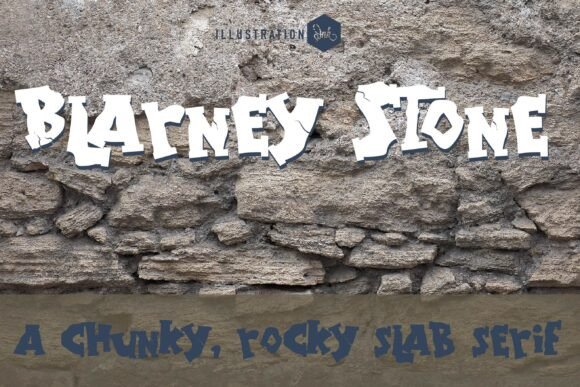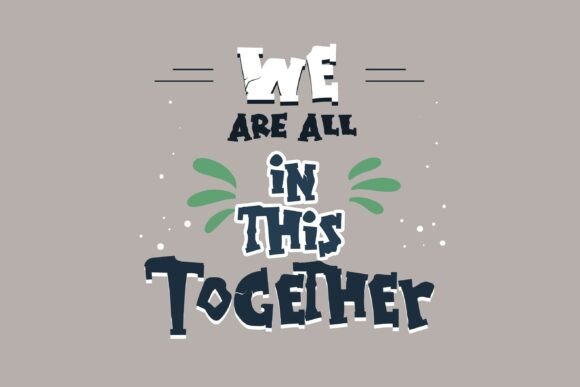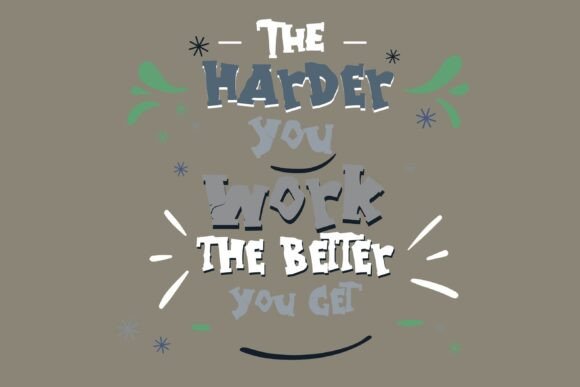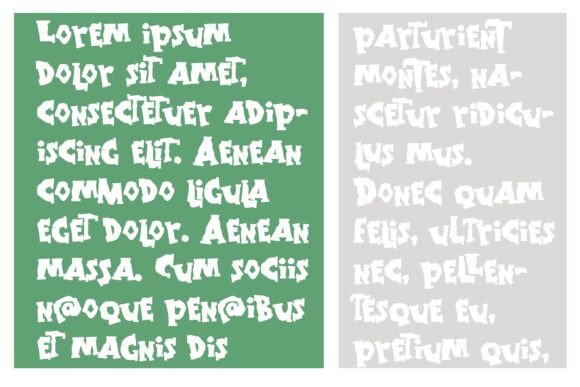
Blarney Stone Font: Chunky Serif for Rustic & DIY Designs
About the Blarney Stone Font
The Blarney Stone Font offers a perfect balance of form and function for your design needs. This hand-crafted, chunky serif sports cracks and a rough, rock-like texture.
Blarney Stone’s rugged texture makes it ideal for headlines, short impactful statements, and branding applications requiring a strong, rustic feel. It excels in posters, packaging for artisanal products, or logos needing a handcrafted, authentic touch. However, its chunky serifs and irregular texture make it unsuitable for body text or UI elements where readability is paramount.
The font’s core personality is bold and rustic, conveying a sense of authenticity and strength. To balance this, pair Blarney Stone with a clean sans-serif like Open Sans for body text or a more refined serif like Garamond for a sophisticated contrast.
For a more playful approach, consider pairing it with a script font like Pacifico; this combination would be suitable for invitations or projects emphasizing a handcrafted, vintage aesthetic.
Blarney Stone Font Usage Examples
Blarney Stone Font Example